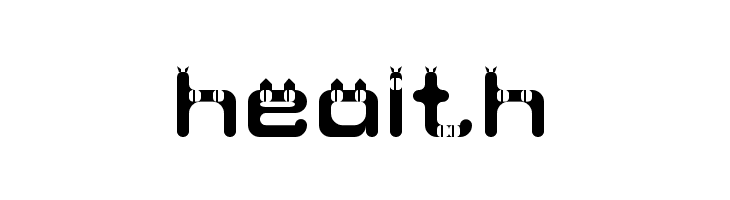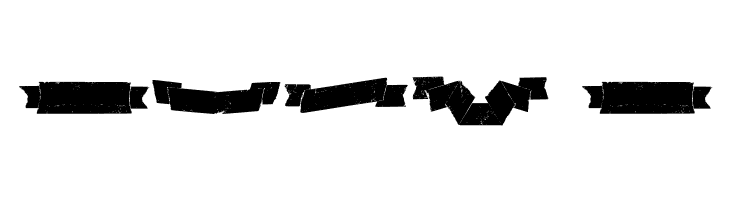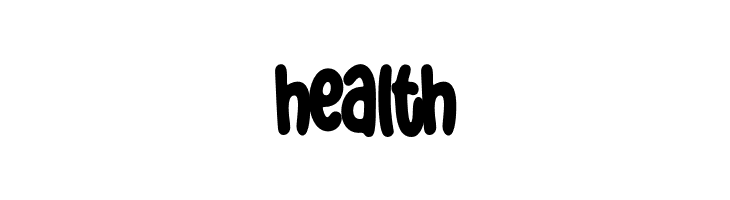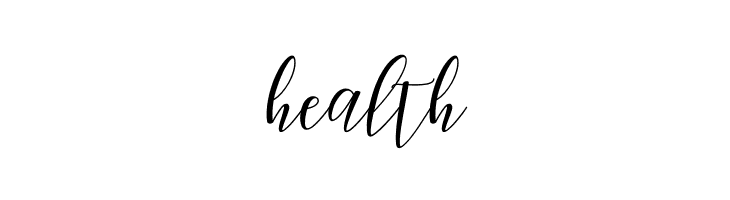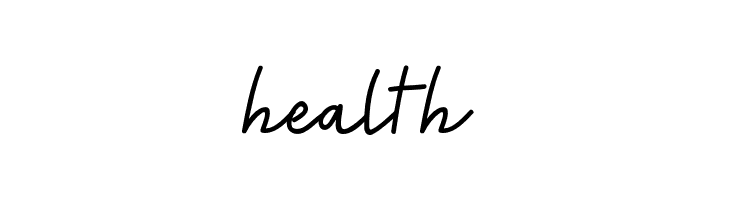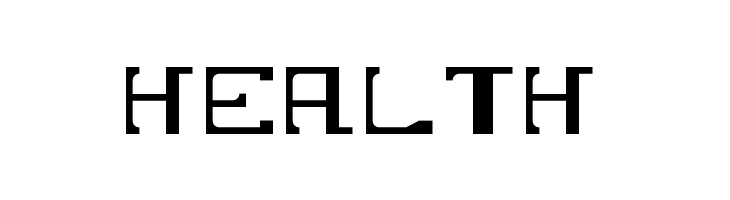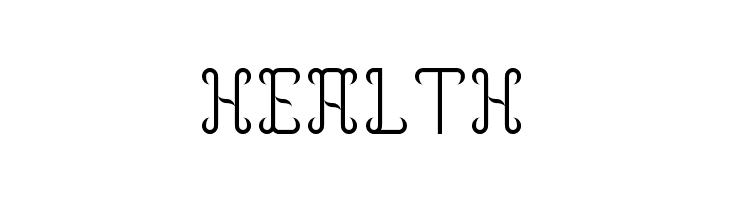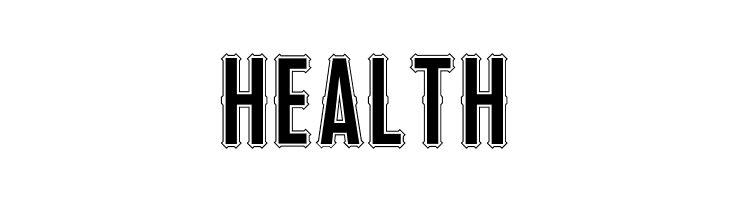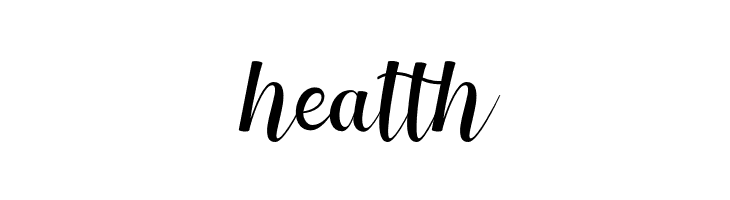
A playful font with cat ear designs on each character, offering a whimsical and modern aesthetic.
A distressed, torn paper-style font with irregular edges and a handmade feel.
A bold, playful font with rounded, thick strokes and a whimsical style.
A modern, elegant script font with flowing, connected characters and high contrast strokes.
A lively, casual handwritten font with fluid and connected letterforms.
A geometric, angular font with a modern and technical appearance.
A decorative and modern font with playful loops and curves.
A futuristic, tubular font with geometric and playful elements.
A bold, decorative font with sharp, angular outlines and high contrast.
A decorative script font with floral embellishments and a whimsical style.